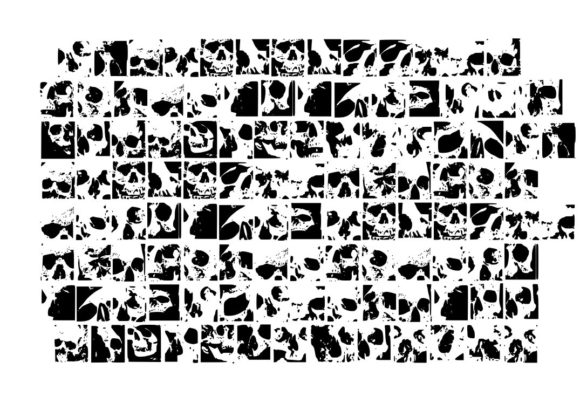
Cypress Skulls Font: The Ultimate Addition to Your Halloween Design Arsenal
As the spookiest time of the year approaches, designers and crafters are on the lookout for the perfect elements to add a touch of eeriness to their projects. If you’re looking for a game-changer, look no further than the Cypress Skulls Font. This massive pack of glyphs features a set of human skulls that are sure to elevate your Halloween designs and craft projects to the next level.
What is Cypress Skulls Font?
Cypress Skulls Font is a unique and versatile collection of glyphs that showcases a variety of human skulls. The pack is designed to provide a wide range of options for designers and crafters, making it an ideal addition to any Halloween-themed project. Whether you’re working on a graphic design, crafting a DIY decoration, or creating a spooky invitation, Cypress Skulls Font has got you covered.
Key Features of Cypress Skulls Font
- Massive Pack of Glyphs: With a vast collection of skull glyphs, you’ll have plenty of options to choose from, ensuring your designs never get repetitive or stale.
- High-Quality Texture: The skulls in this pack boast a perfect texture that’s sure to add a realistic and eerie feel to your designs.
- Versatile and Compatible: Cypress Skulls Font is compatible with various design software and can be used across multiple platforms, making it easy to incorporate into your workflow.
- Perfect for Halloween Projects: The font is specifically designed with Halloween in mind, making it an essential tool for designers and crafters looking to create spooky and eye-catching content.
How to Use Cypress Skulls Font in Your Designs
Integrating Cypress Skulls Font into your designs is easy and straightforward. Here are a few ways you can make the most of this fantastic resource:
- Graphic Design: Use the skull glyphs to create striking posters, flyers, or social media graphics that are sure to grab attention.
- Crafting: Add a personal touch to your DIY Halloween decorations, cards, or gift tags with the unique skull designs.
- Digital Art: Incorporate the Cypress Skulls Font into your digital art pieces to give them a haunting and surreal feel.
Tips and Tricks for Getting the Most Out of Cypress Skulls Font
To ensure you get the most out of this incredible resource, here are some tips and tricks to keep in mind:
- Experiment with Different Sizes and Colors: Play around with various sizes and colors to add depth and visual interest to your designs.
- Mix and Match Glyphs: Combine different skull glyphs to create unique and intricate designs that showcase your creativity.
- Use as a Background or Overlay: Use the skull glyphs as a background or overlay to add texture and interest to your designs.
Cypress Skulls Font is a game-changing resource for designers and crafters looking to add a touch of spookiness to their Halloween projects. With its massive pack of glyphs, high-quality texture, and versatility, this font is sure to become a staple in your design arsenal. So why wait? Get creative with Cypress Skulls Font and make your Halloween designs and craft projects stand out from the crowd!